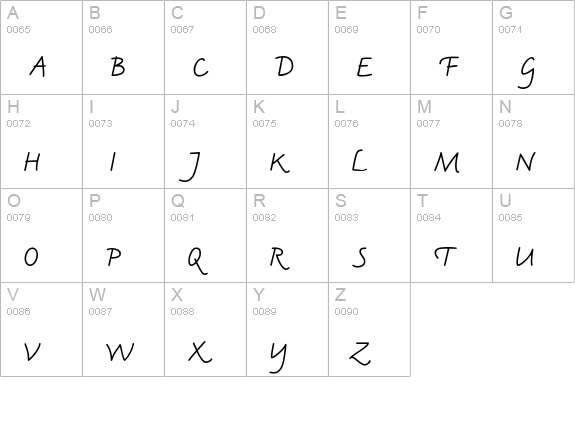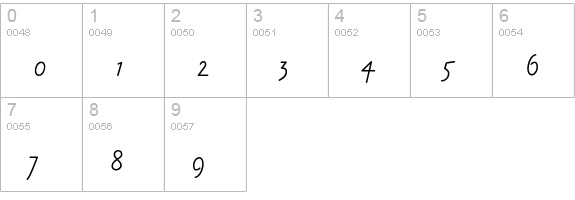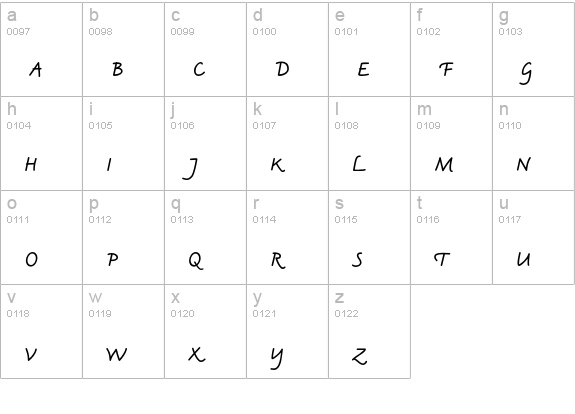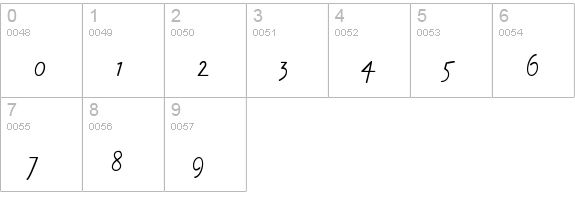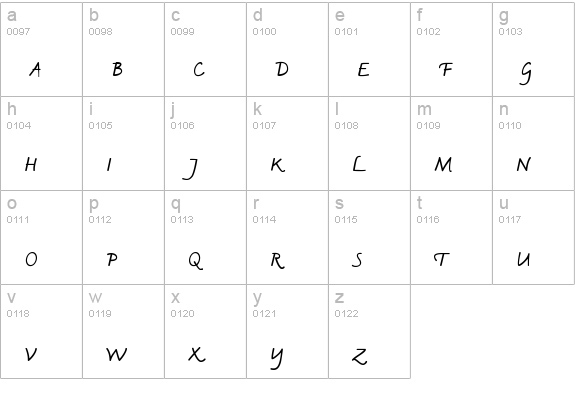
Amadeo Std Small Caps Font Details
Amadeo Std Small Caps is a sophisticated and elegant typeface that exudes timeless charm and classical appeal. Its small caps design adds a touch of refinement and professionalism to any text, making it ideal for projects that require a touch of sophistication. The clean lines and balanced proportions of Amadeo Std Small Caps make it versatile and easy to read, perfect for both print and digital applications. What sets Amadeo Std Small Caps apart is that it is available for free download at FontsMarket.com. This means that you can easily access and use this beautiful font in your projects without any cost. Whether you are designing a wedding invitation, creating a logo, or working on a branding project, Amadeo Std Small Caps will elevate your design with its classic and timeless aesthetic. Download this exquisite typeface today and add a touch of elegance to your work.